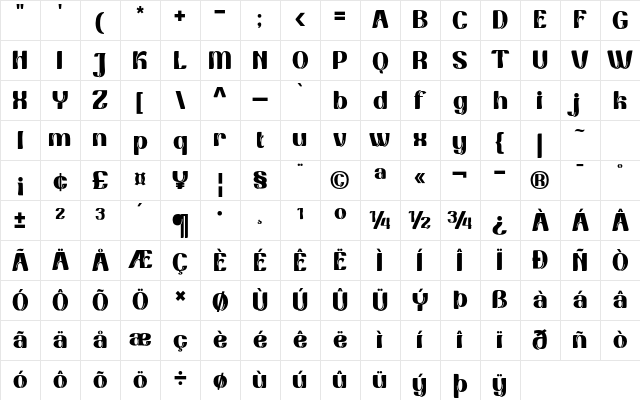
Fadethotrial Regular Free Font
Fadethotrial Regular
Foundry: twinletter
Designer: HAKIM
Complete Fadethotrial Regular glyph index. Displaying only characters natively supported by Fadethotrial Regular font.
Design Context for Fadethotrial
Fadethotrial is a composed and adaptable typeface that performs quietly and consistently across a wide range of design contexts.